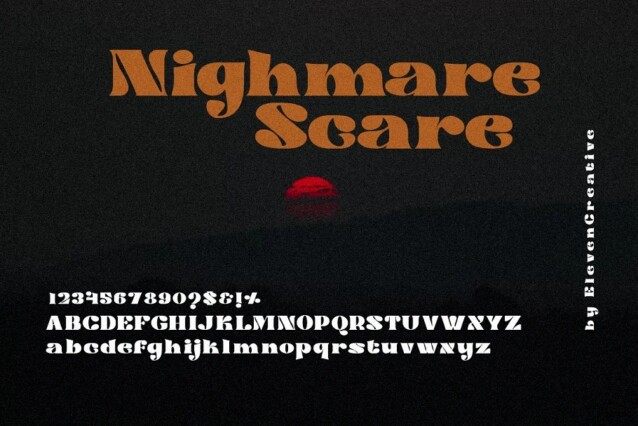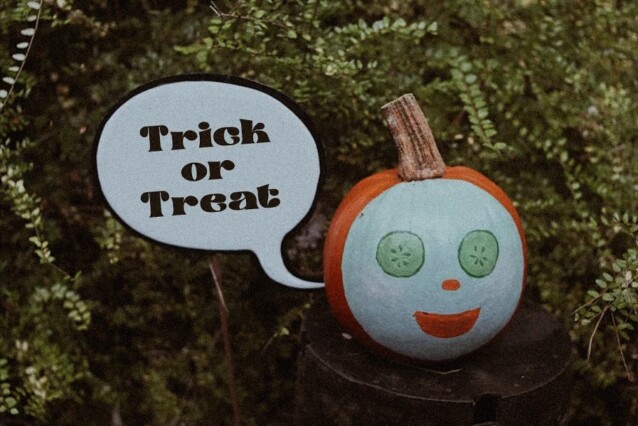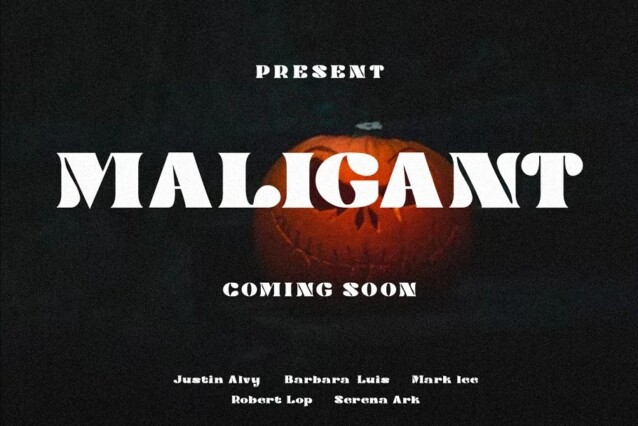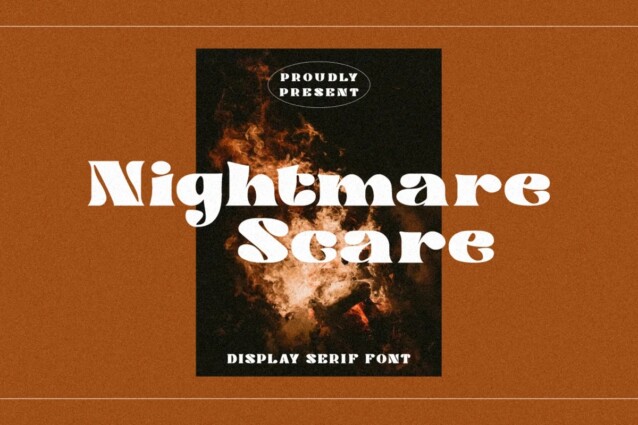
Nightmare Scare Font
Nightmare Scare Font is a stylish serif font inspired by the typography of the ’90s, which exudes an irresistible sense of nostalgic and timeless charm. The font is suitable for any branding project like logo, t-shirt printing, esport, and many more. outstanding in a wide range of contexts.